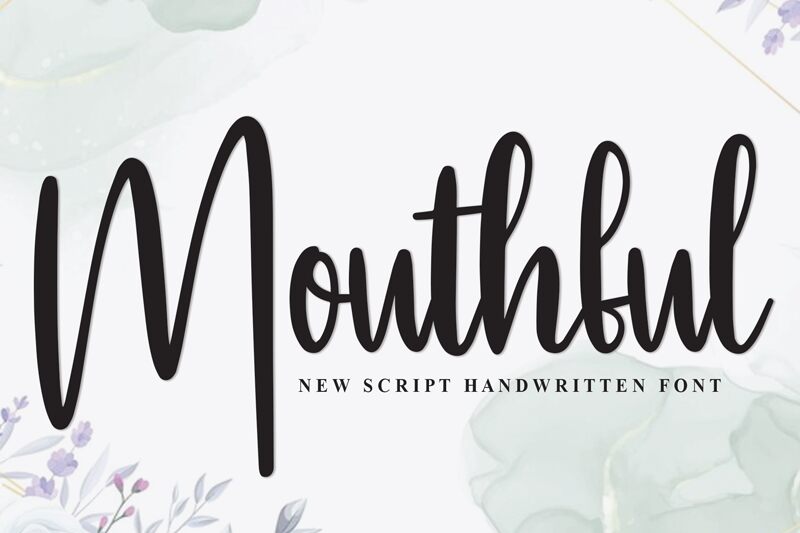
Mouthful
Mouthful, a captivating handwritten font crafted by Scratchones, exudes a distinct personality that commands attention. With its condensed, fluid strokes, this typeface seamlessly blends elegance and playfulness, creating a visually striking aesthetic. The natural, organic flow of the letterforms effortlessly conveys a sense of movement and energy, making it an engaging choice for a wide range of design applications.
Mouthful's versatility shines through its ability to adapt to diverse design contexts. From editorial layouts and packaging designs to branding initiatives and social media content, this font possesses the versatility to elevate the visual appeal of any project. Its condensed width allows for efficient use of space, making it an ideal selection for headlines, titles, and attention-grabbing statements that demand a powerful, memorable impact.